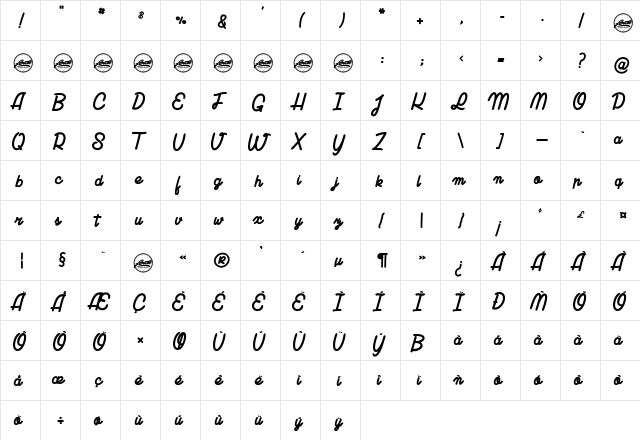
Lucia_Personal_Use_Only Regular
| Foundry | dcoxy Medina Gregory |
| Designer | dcoxy Medina Gregory |
Design Context for Lucia_Personal_Use_Only Typeface
Lucia_Personal_Use_Only offers clean, dependable letterforms without strong stylistic allegiance, making it a practical choice for designers who need flexibility.